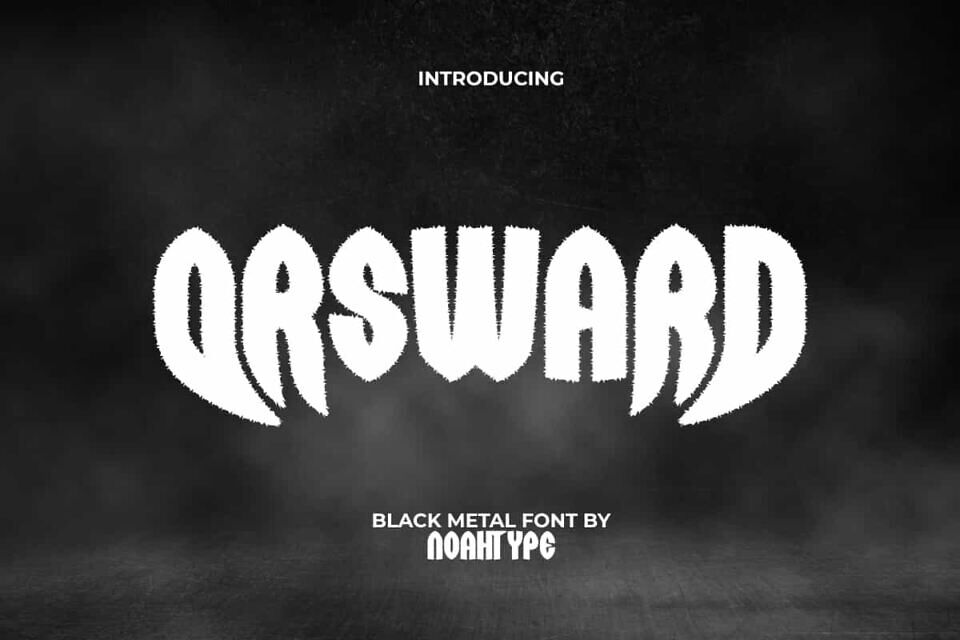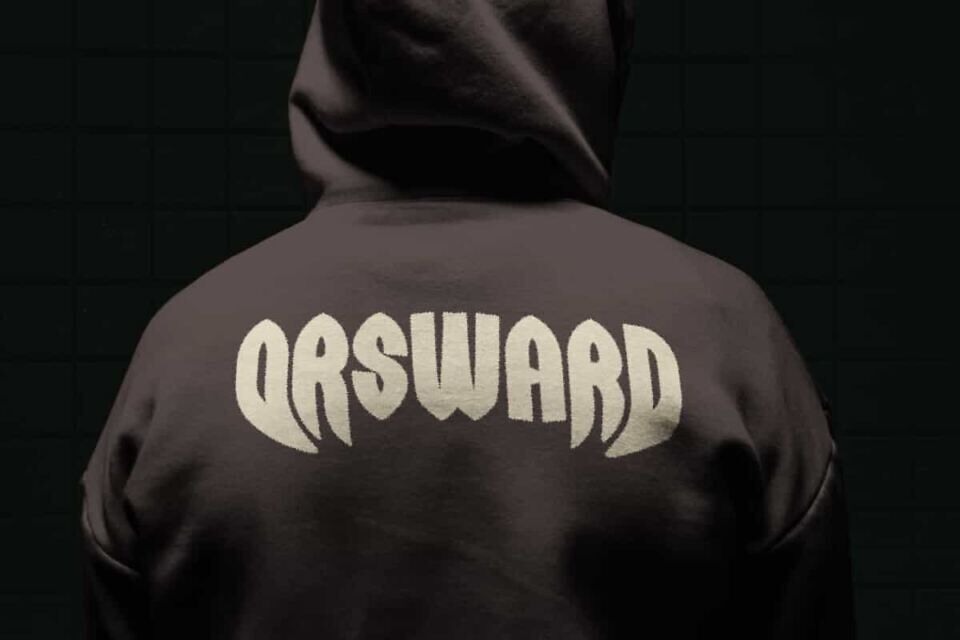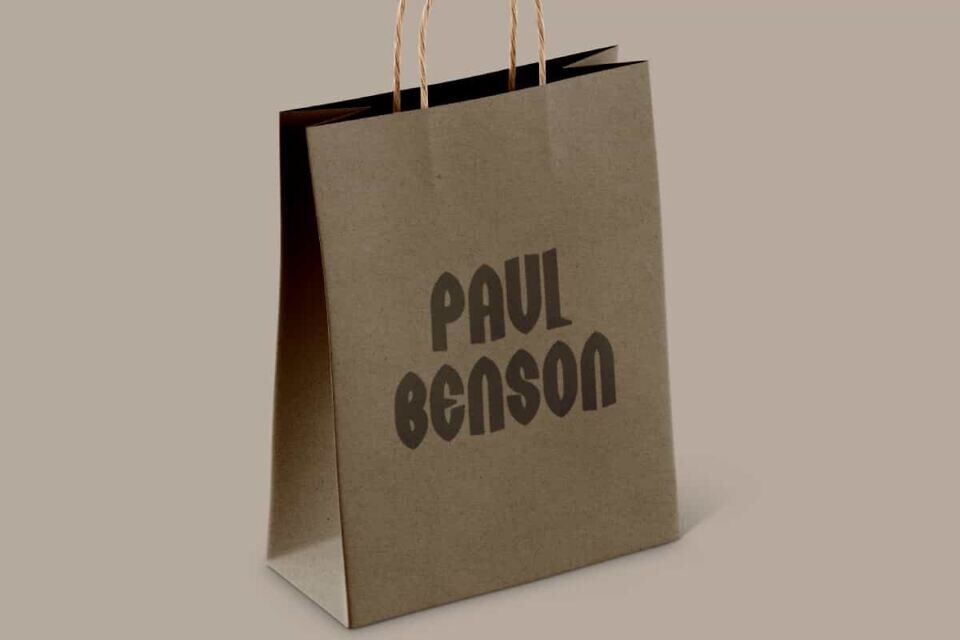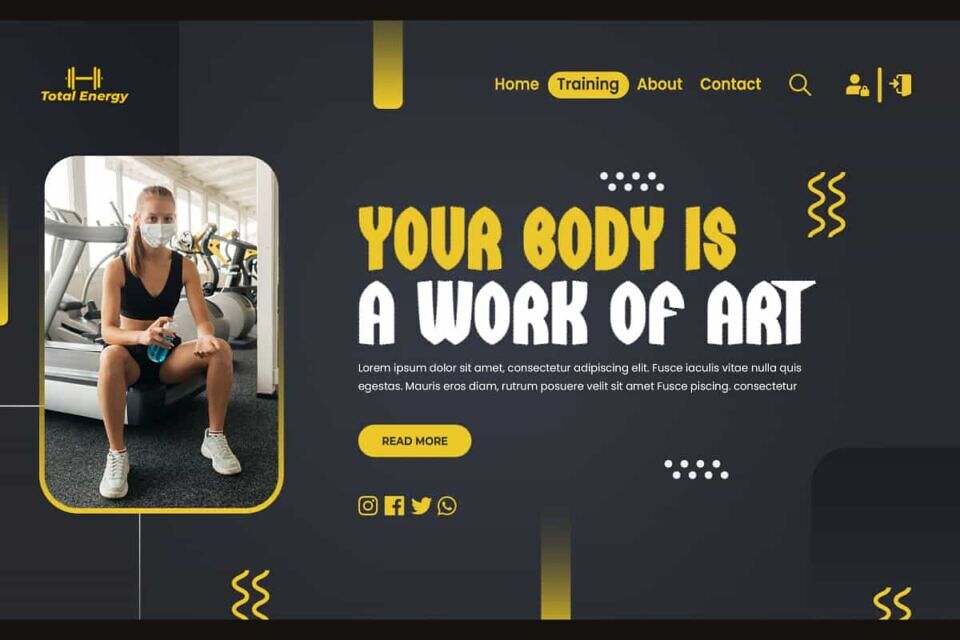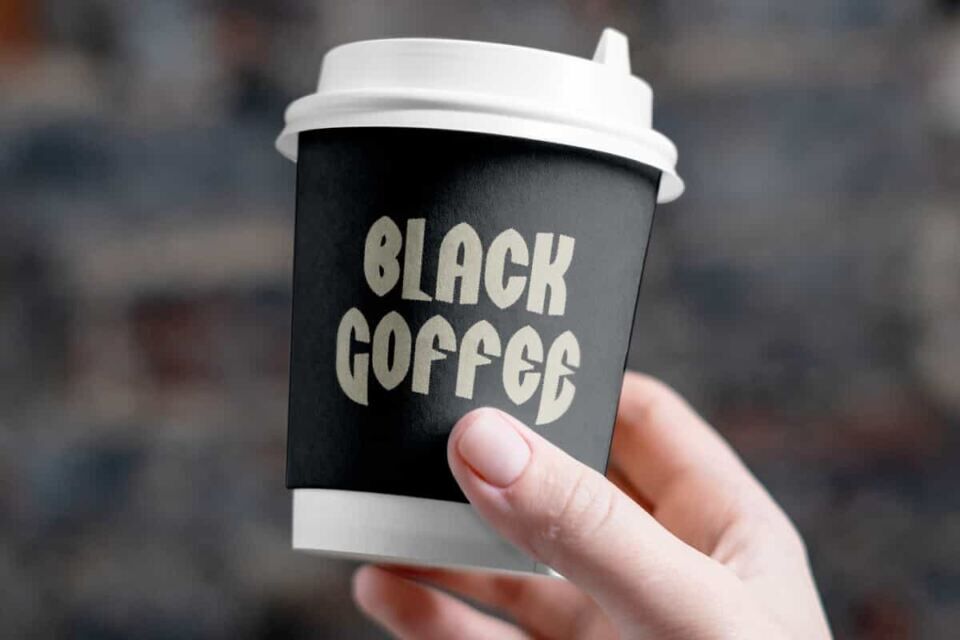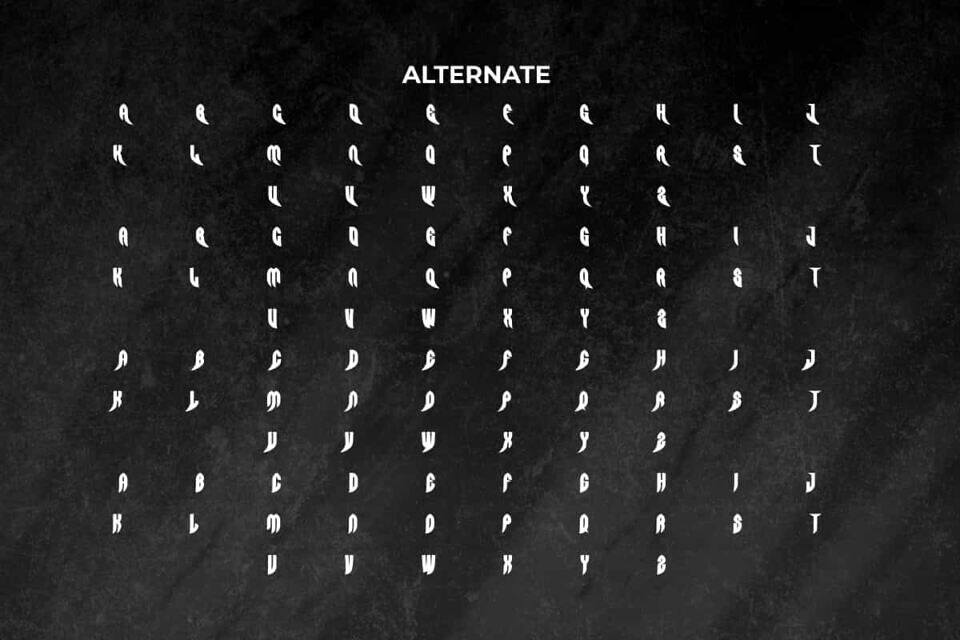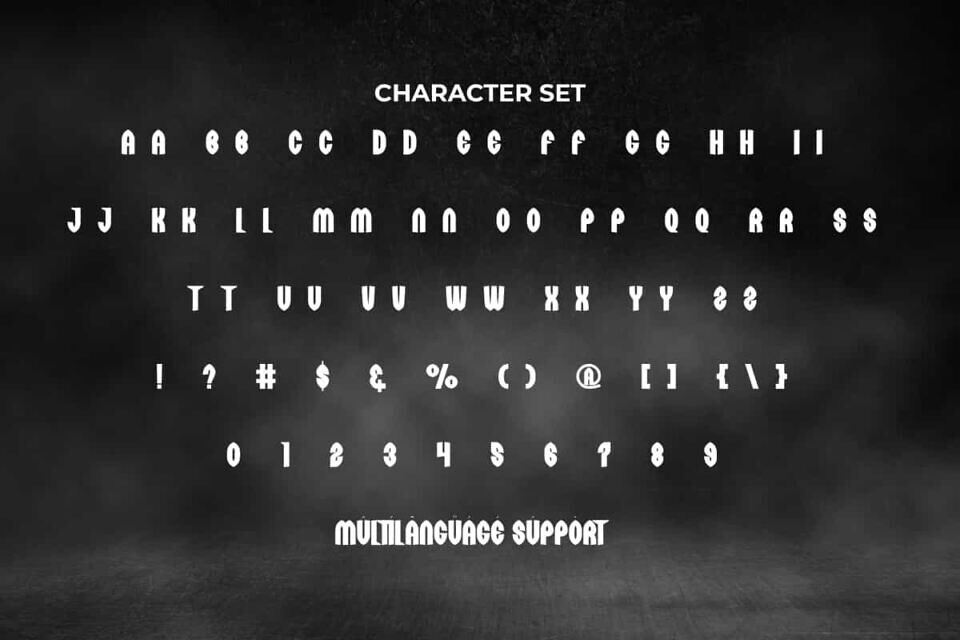
Orsward Font is a harsh and bold black metal font with grunge style, created by NoahType. With bold letter characters, this font looks mysterious with small shape accents surrounding the letters. It will be perfect for any designs, such as custom design, signage, poster, brand image, cover, invitation, label, marketing material, menu, printing, product packaging, quotes, website, and many more!
Orsward Font includes full set of ALL CAPS for Uppercase and Lowercase Basic Characters, Numerals, Punctuation, Symbol, and Alternate character. This font will make your design amazing and also a perfect choice for many industries, such as game, movie, event or festival, barber shop, fashion, accessories, advertising, art, café, printing, publishing, etc.